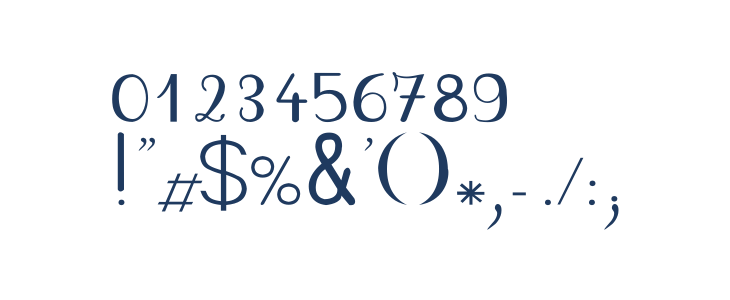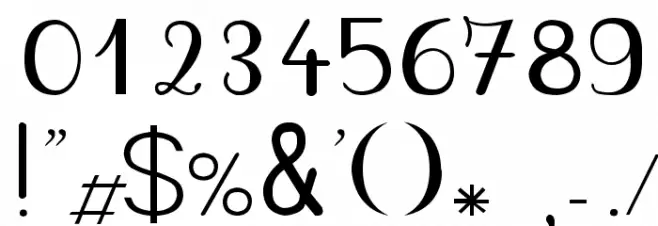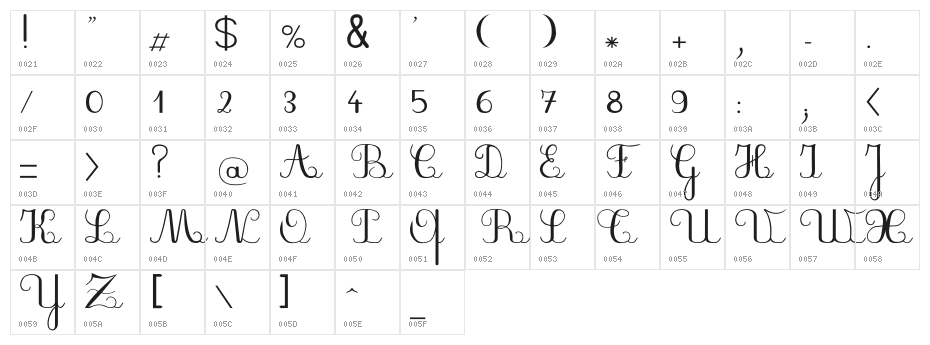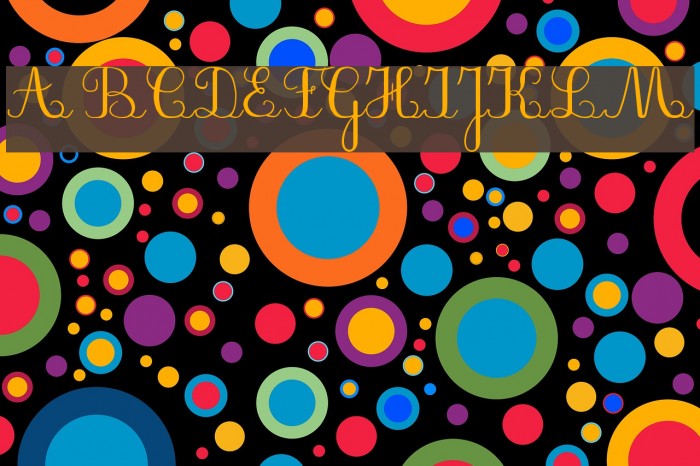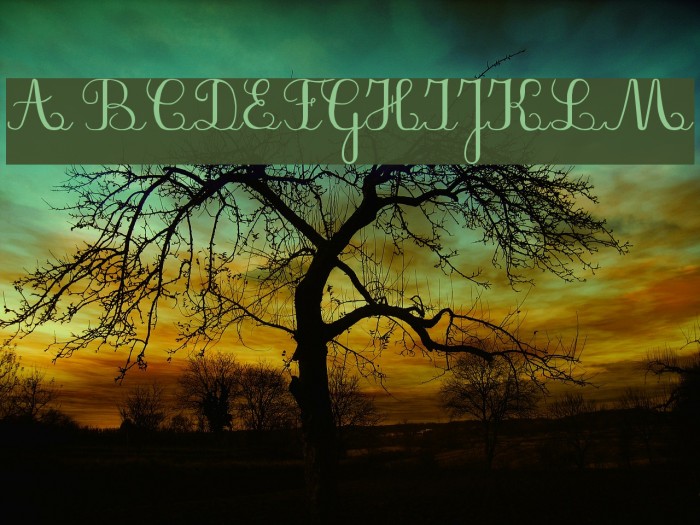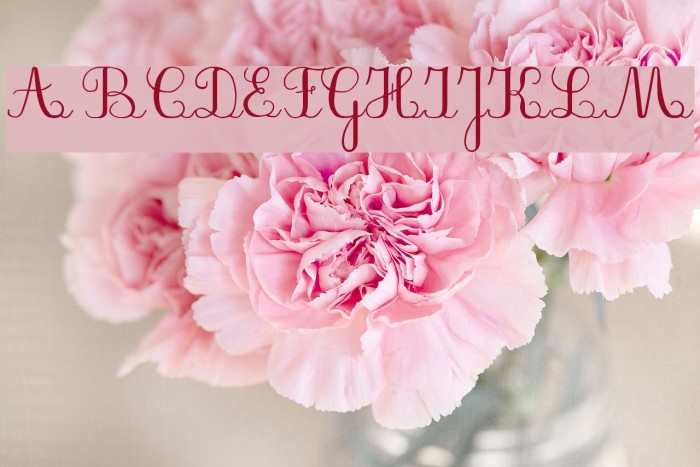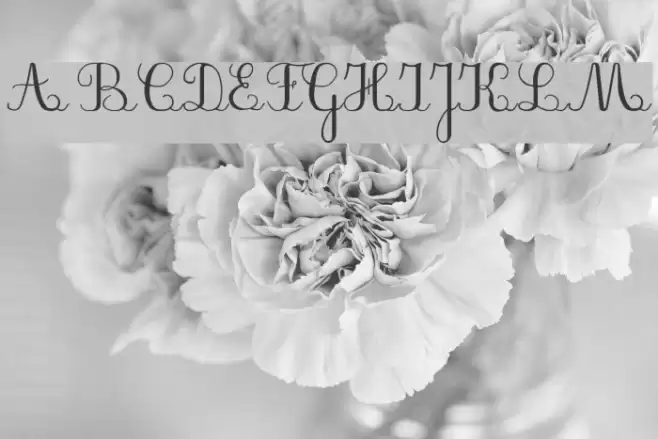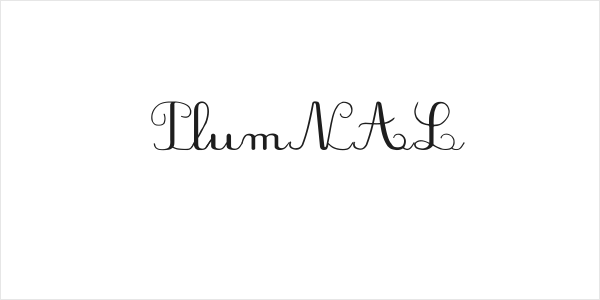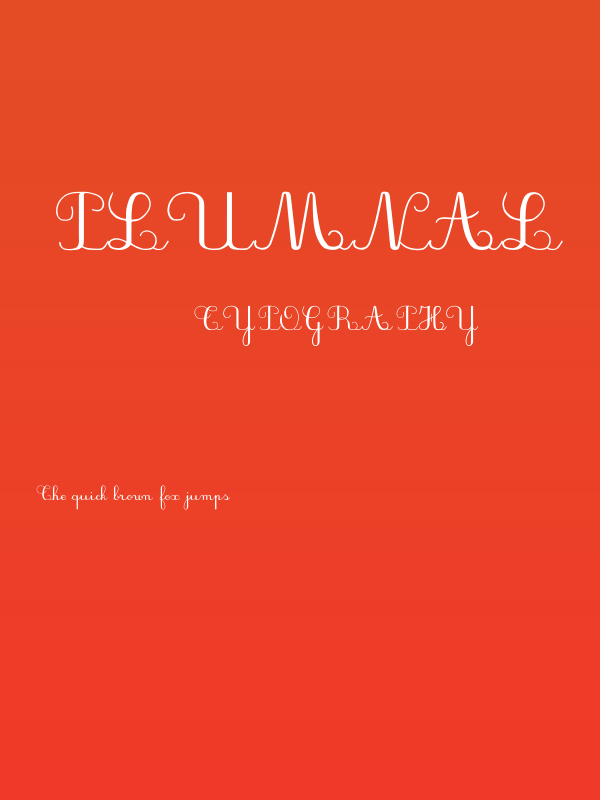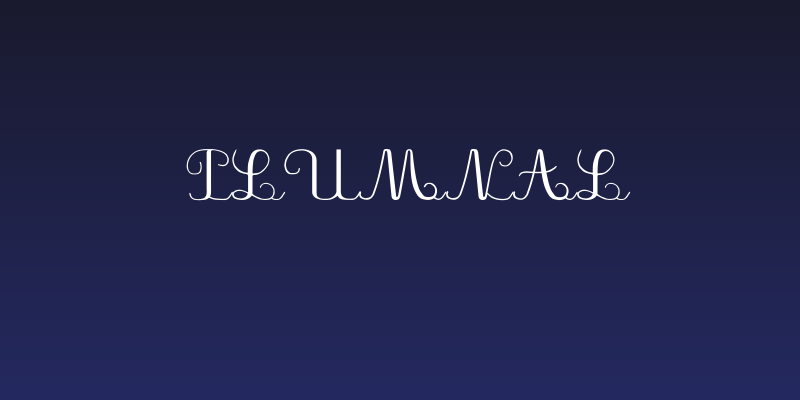
PlumNAL Font
PlumNAL Description
This font features an elegant and sophisticated script style, characterized by its flowing, interconnected letterforms. The uppercase letters are particularly ornate, with intricate loops and swirls that give a sense of movement and grace. The lowercase letters maintain a consistent style, with smooth curves and a slightly more restrained design compared to the uppercase. The numerals are clear and easy to read, while the special characters blend seamlessly with the overall aesthetic. This font's delicate lines and artistic flair make it ideal for projects that require a touch of elegance and refinement.